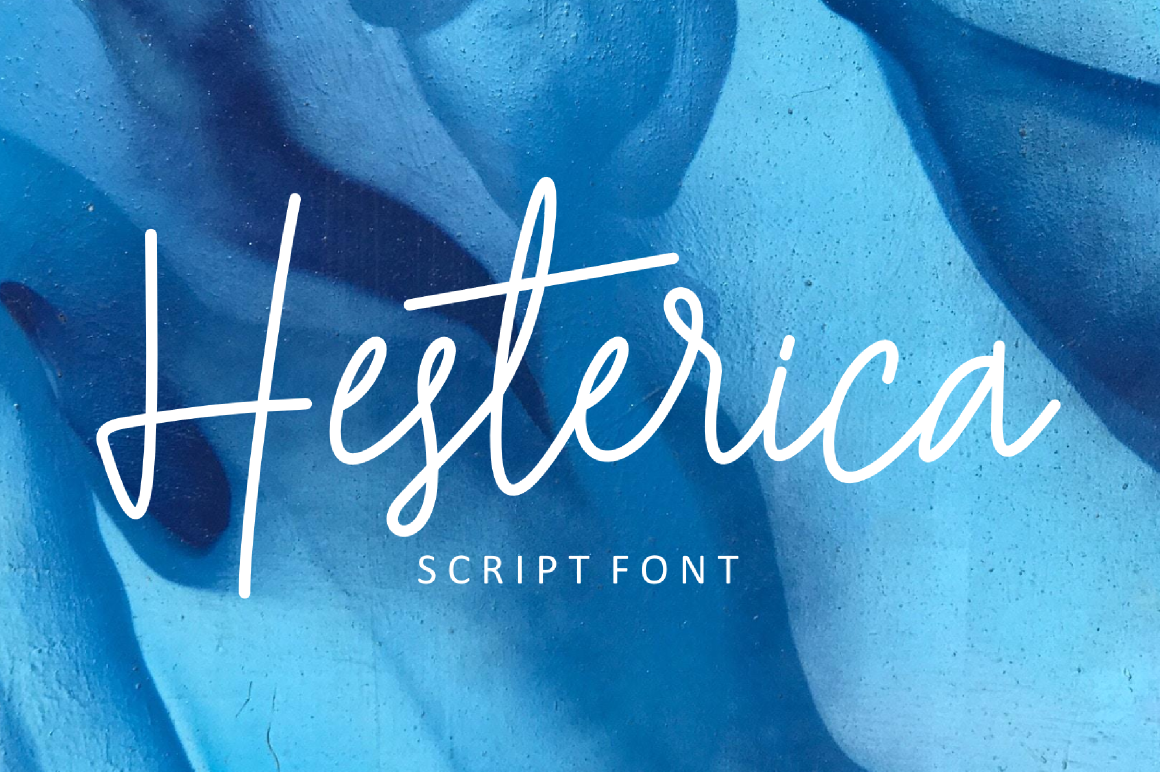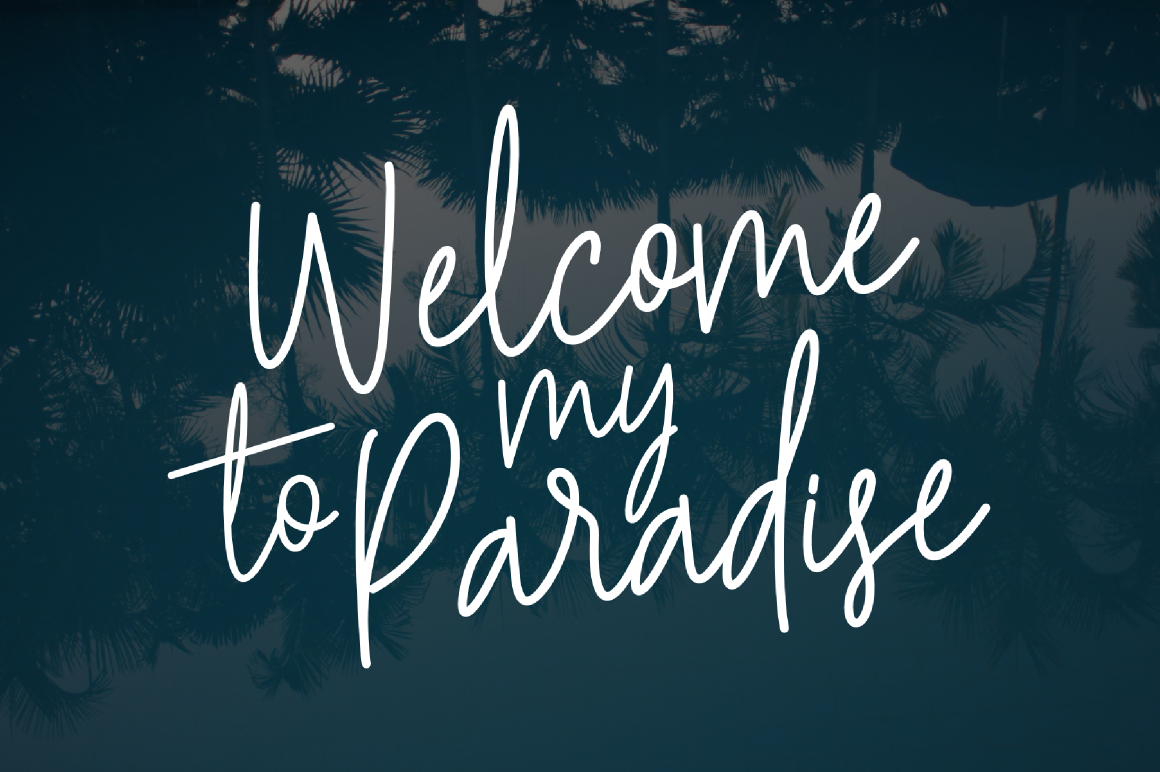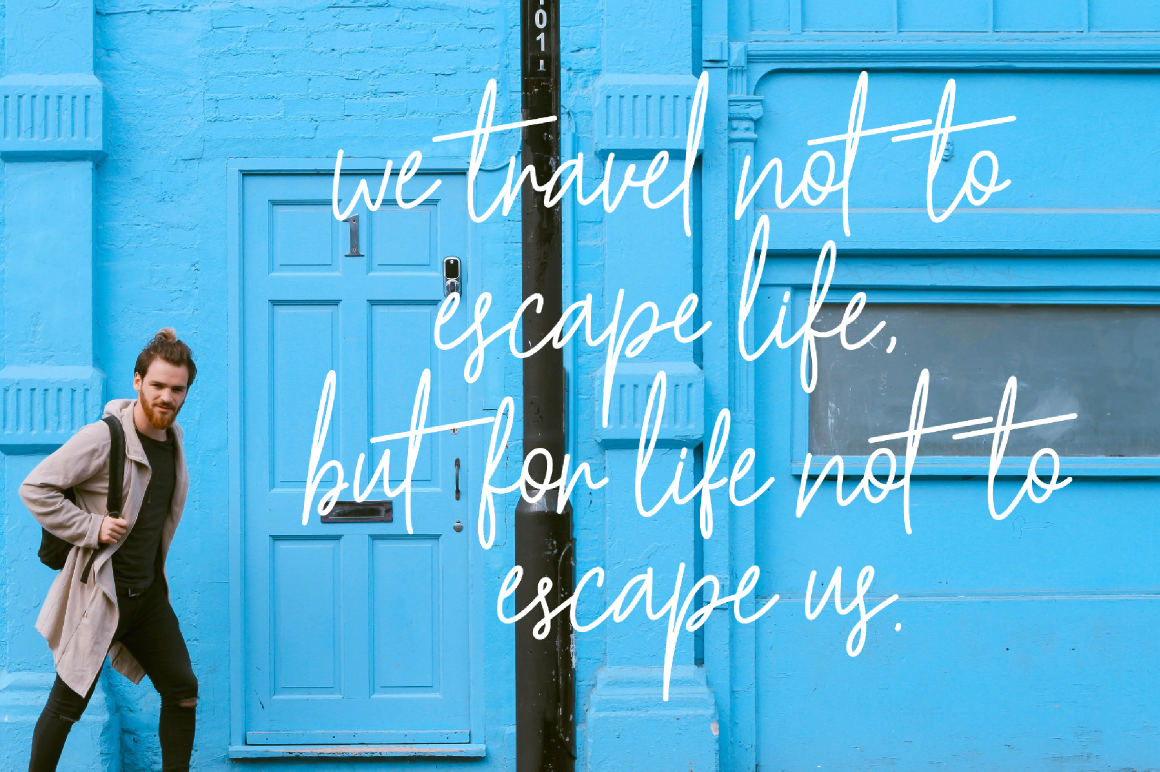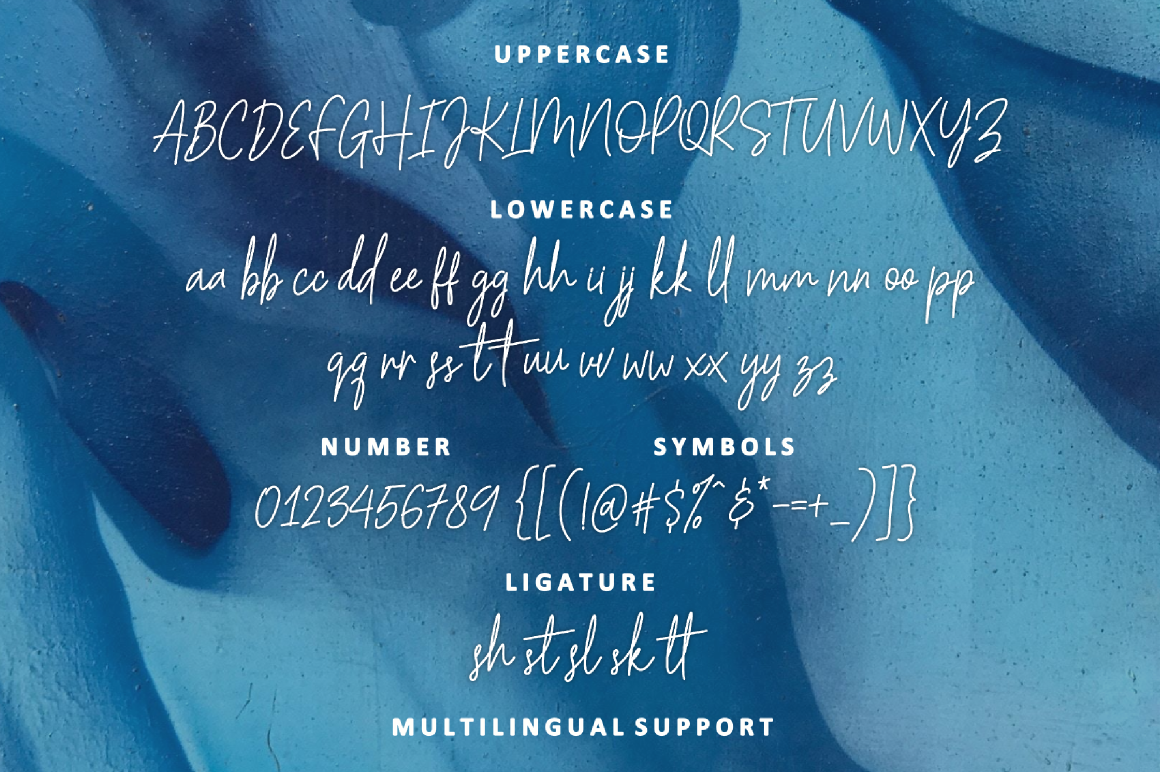
Hesterica Font
About Hesterica Font
Hesterica is a clean and bouncy signature font, perfect for incorporating into many different creative project types. This font is a great way to give quotes or headlines a beautiful feel with an unparalleled simplicity.